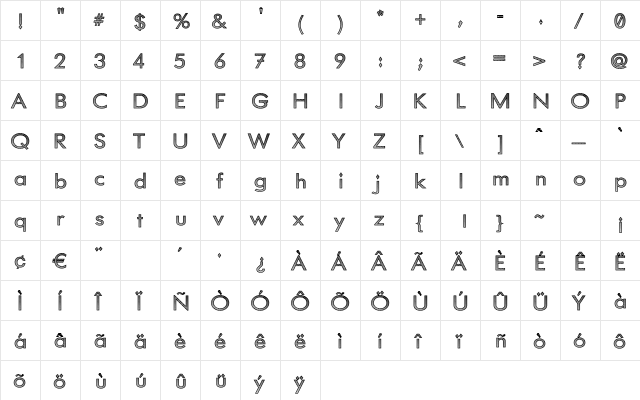
Phoenix Arise Regular
Design Context for Phoenix Arise Typeface
Phoenix Arise takes a measured approach to typography — its balanced proportions and neutral character make it a reliable workhorse for both digital and print work.
Pro Tip: Use Phoenix Arise in both headline and body roles to test its range before committing to a single application.